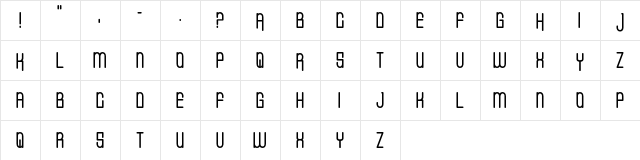
Krazy Hazy Regular
Design Context for Krazy Hazy Typeface
Krazy Hazy is a composed and adaptable typeface that performs quietly and consistently across a wide range of design contexts.